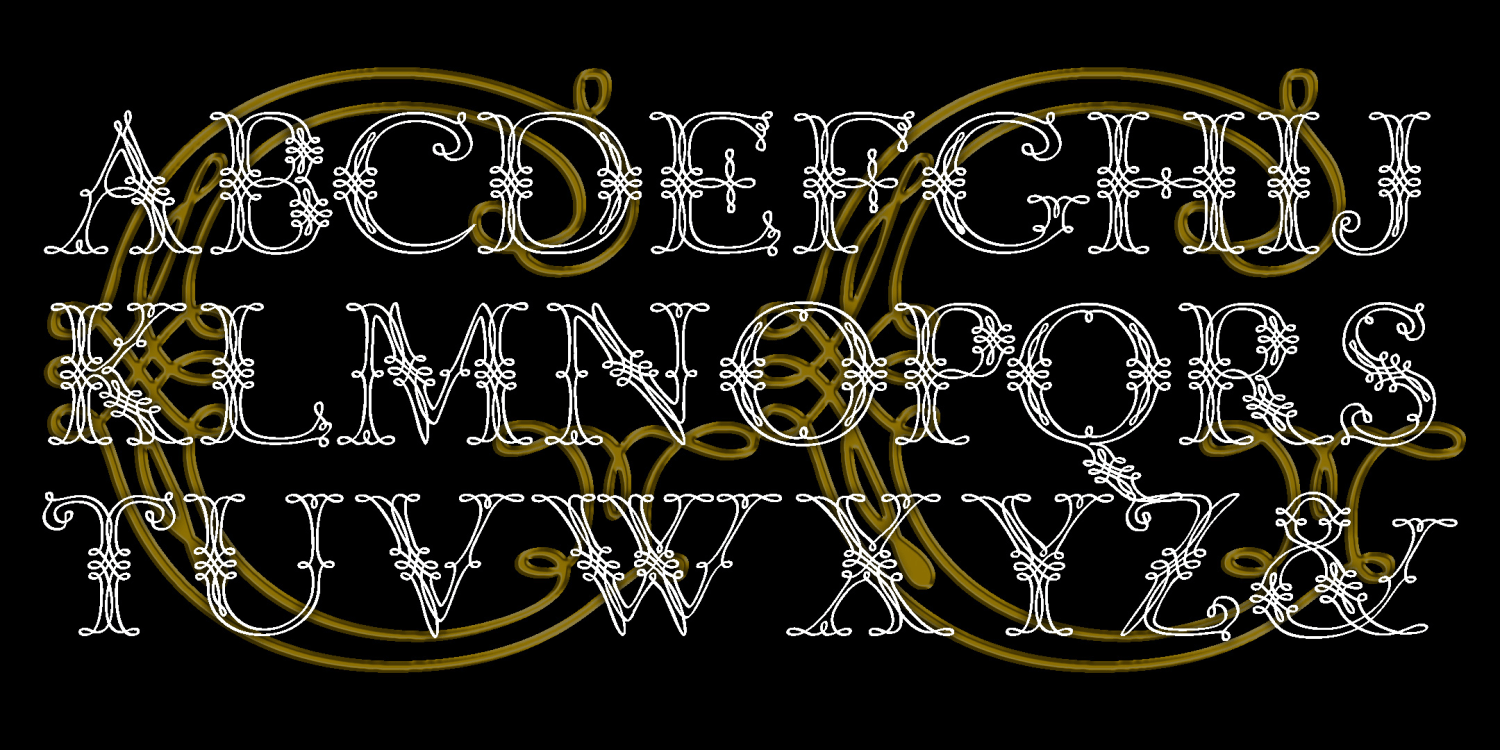
Graceful Ghost
GRACEFUL GHOST, an ornamental calligraphic font, was suggested to me by Bruce Baryla, who also proposed the name. Here is all the information I have about the original that inspired it: 18th century, French School, Pouget Brothers."  Completely redrawn–not traced–for very smooth lines. Looks great reversed and, of course, BIG.
GRACEFUL GHOST includes caps, no numbers, limited punctuation and international characters.